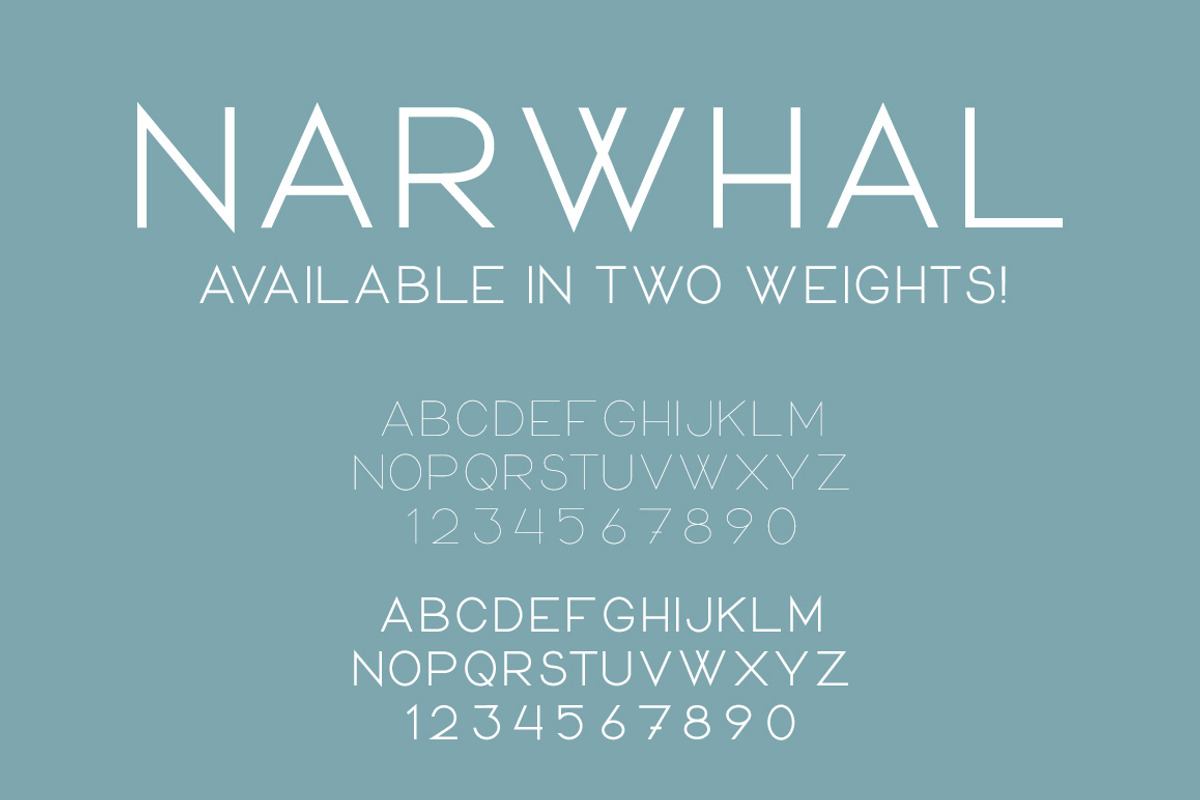
Narwhal Font Free Download is a sleek and modern sans-serif typeface designed for both legibility and style. Its clean lines and contemporary structure make it ideal for a variety of design projects such as branding, web design, logos, headlines, and print materials. Whether you're working on a corporate website, a sleek product packaging design, or a creative marketing campaign, Narwhal offers versatility and elegance.
The font’s simplicity and geometric shapes ensure that it remains readable and professional while providing a modern edge to your designs.